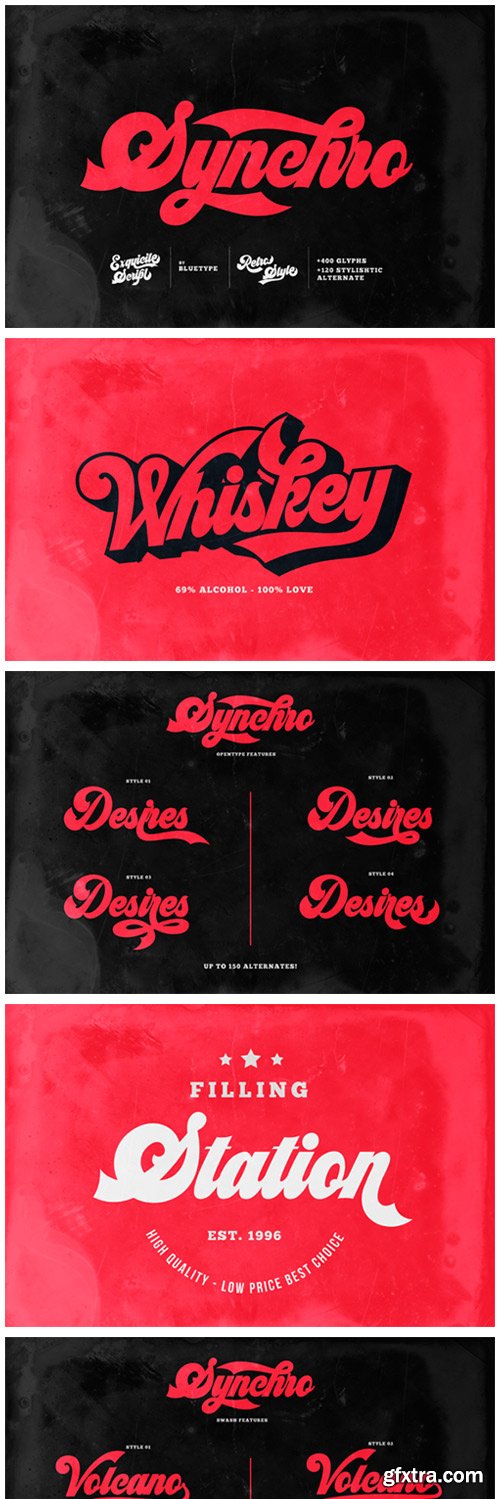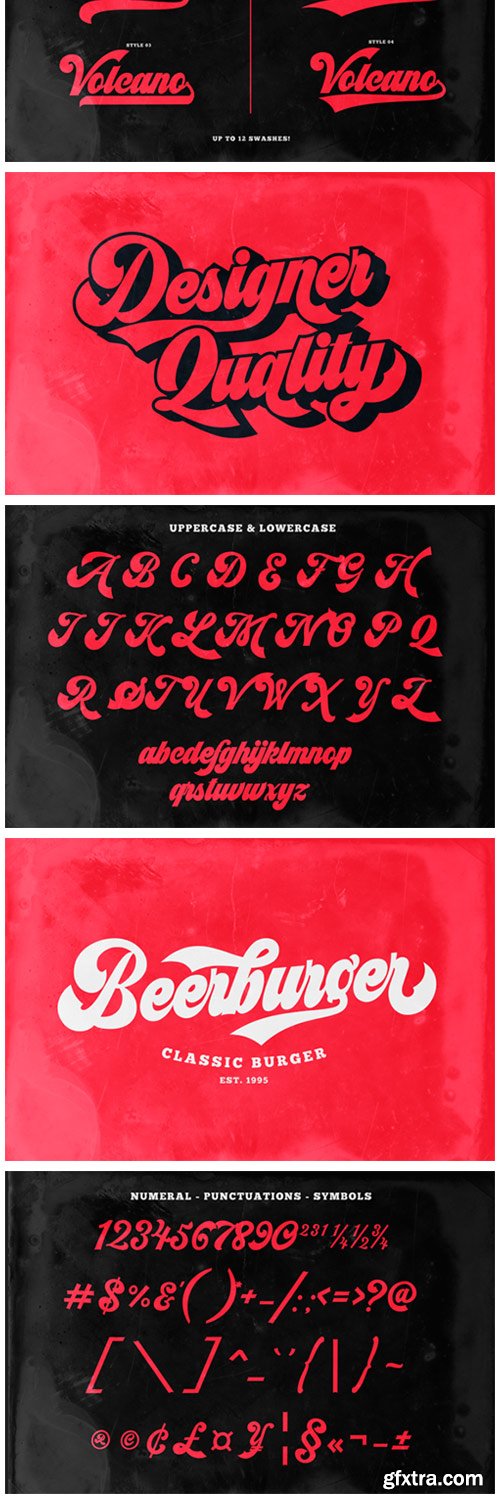
Synchro Font
Synchro is a exquisite display font inspired by the retro design from 70's and 80's. It's perfect for creating vintage designs. This font will look great in logos, t-shirt, badge, quotes, branding, packaging, and more! This font is PUA encoded which means you can access all of the glyphs and swashes with ease!